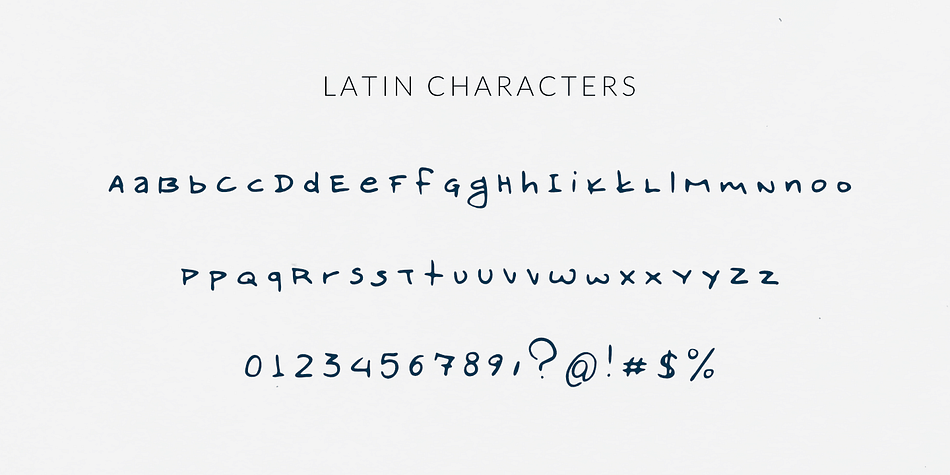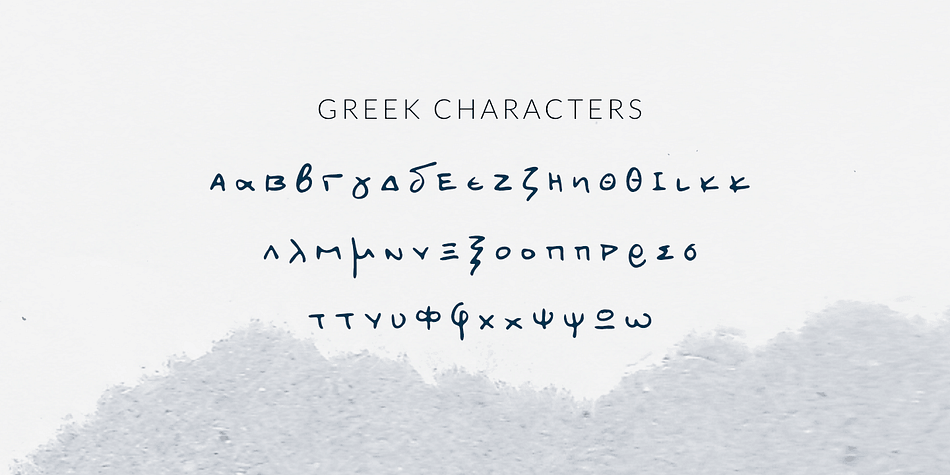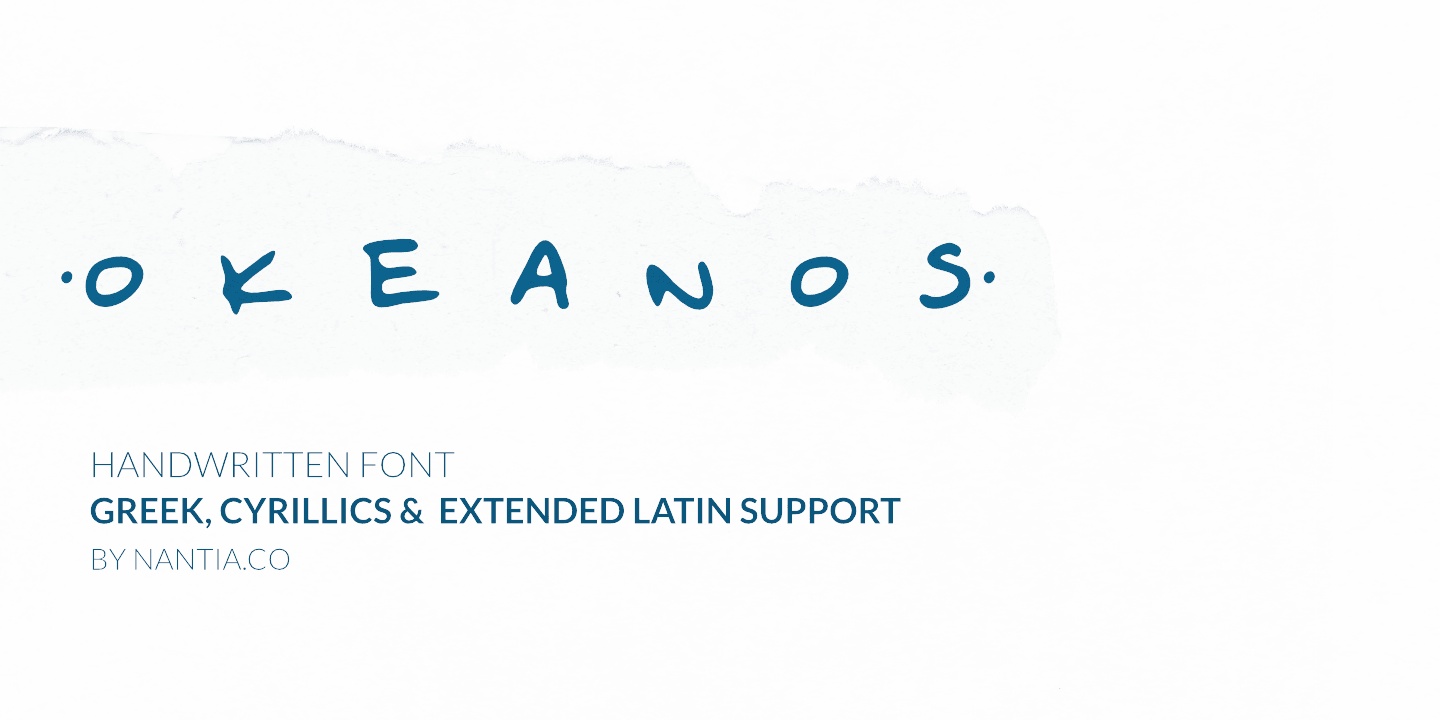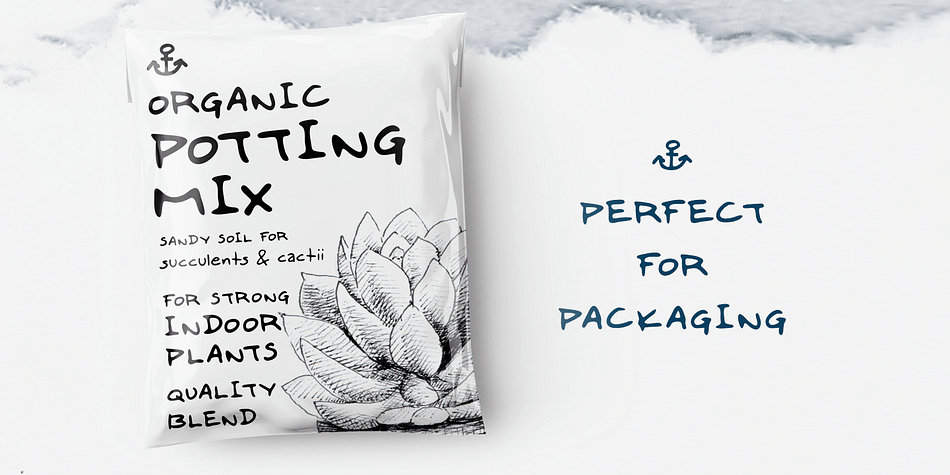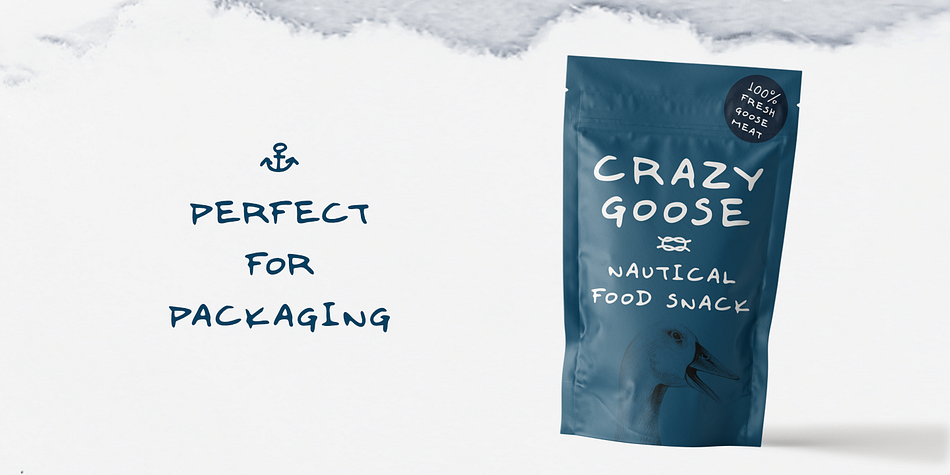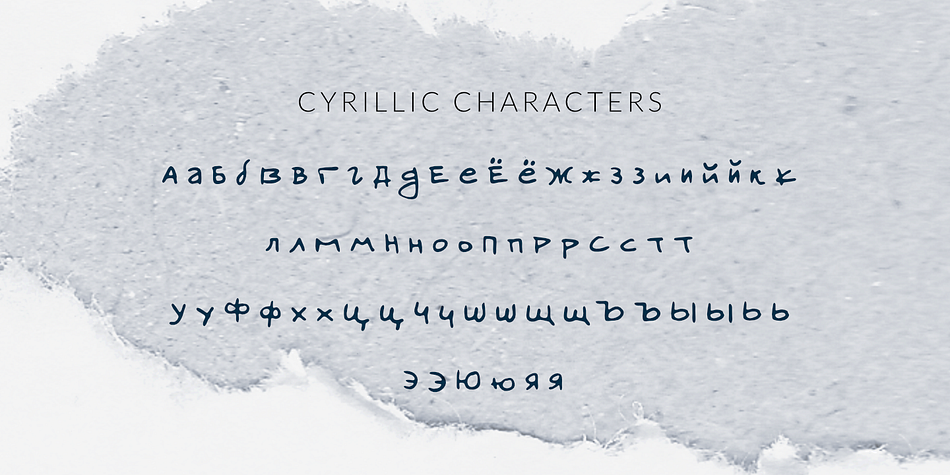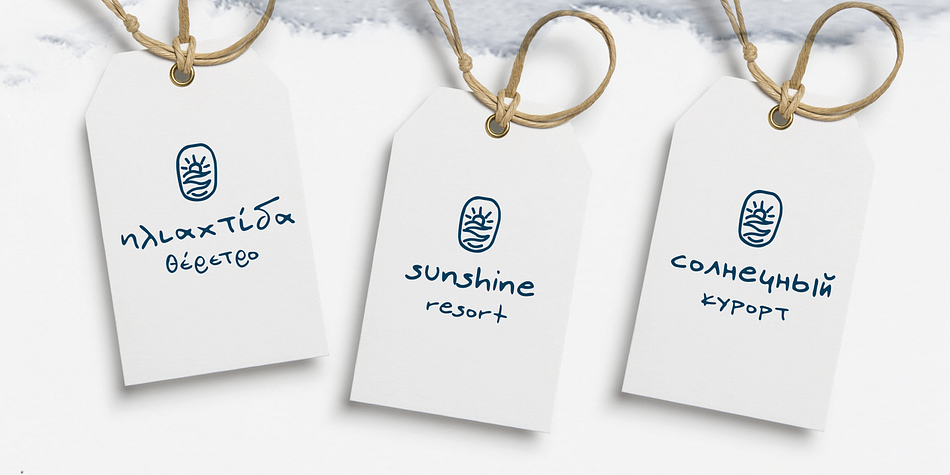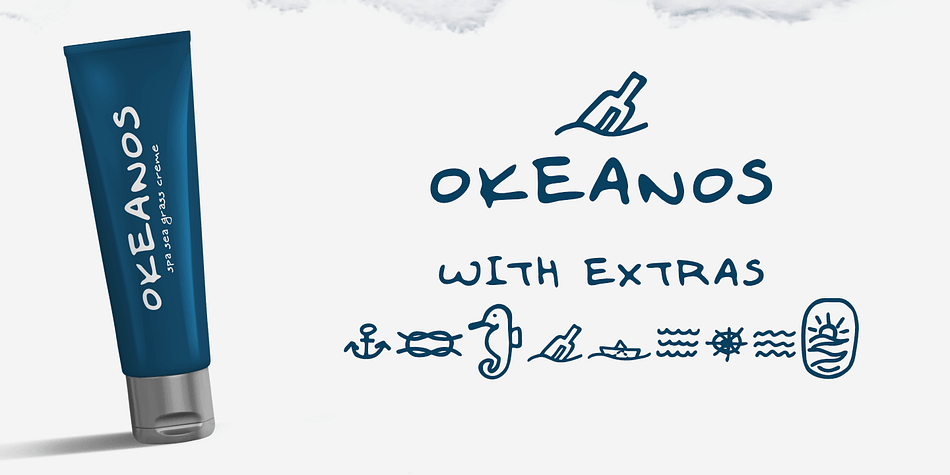
Okeanos is a hand drawn font published by Konstantina Louka.
Okeanos Handwritten Greek Cyrillic Font
Okeanos Handwritten Greek Cyrillic Font is a handwritten display font. 100% handcrafted with a marker, digitized, and turned into a font. Of course, the font supports a full set of Greek characters, Cyrillics, and an extended Latin character set with diacritics. With 10 nautical icons, this typeface can be your next typeface for your graphic design needs.
From “hand-written” quotes to product packaging, merchandise, and branding projects, this font is so easy to use that it can cover them all. Also, it can be used on social media content, for branding, poster design, for “hand-written” quotes, and any other kind of product packaging.
Extended Latin Character set
Cyrillic Character set
Greek Character set
Numerals